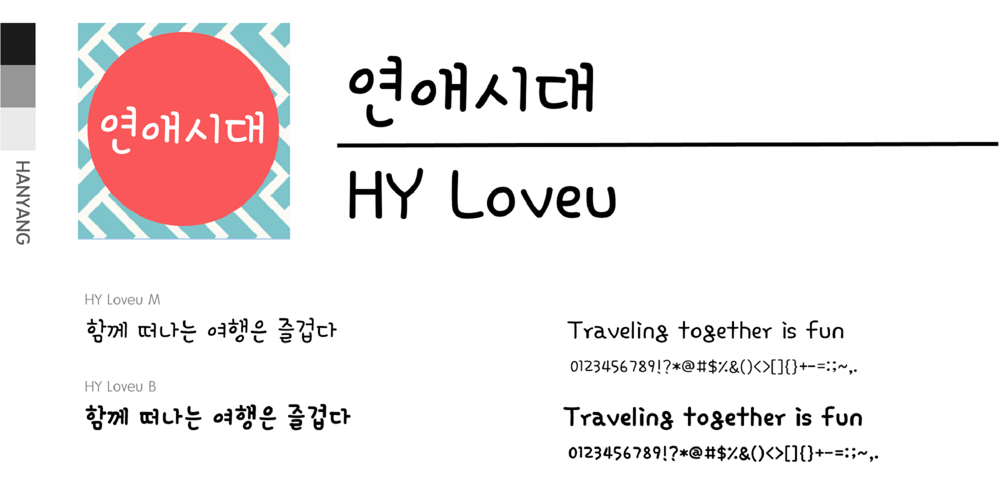
HY Loveu Font Family was designed by font hy and published by HY Font. HY Loveu contains 2 styles and family package options. Unlike the existing Myeongjo font, this font features serifs that are simple and cute.It was designed to look calm but also give off a lyrical feeling thanks to the round shape of the letters and serifs.This font can be easily used not only for text but also for titles.